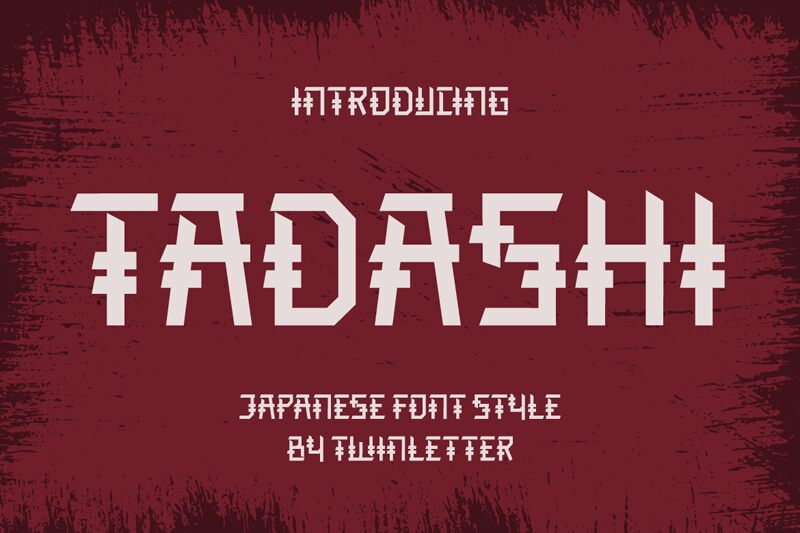
TADASHI is a stunning semi-light Japanese-style font designed by twinletter. With its unique and intricate strokes, this font is perfect for adding a touch of elegance to any project. Whether you're designing invitations, menus, or even logos, TADASHI's graceful curves and clean lines will make your text stand out. This versatile typeface can be used for both digital and print media projects such as websites, books, and posters. Its semi-light weight makes it easy to read on screens while maintaining its sophisticated appearance in print materials. Elevate your designs with TADASHI today!